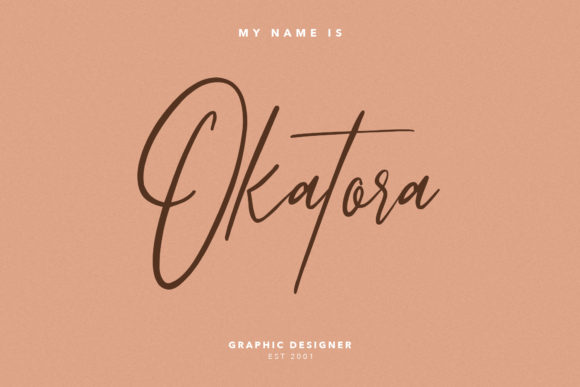
Osttrola Font: Free Download Now
Introduction to Osttrola Font
Osttrola is a gorgeous script that will turn any design project into a standout.
Fall in love with its modern approach to lettering .
Key Features of Osttrola Font
Why Choose Osttrola Font?
Osttrola Font offers exceptional quality and versatility, making it a valuable addition to your design toolkit. Whether you’re creating for personal projects or commercial use, Osttrola Font delivers professional results.